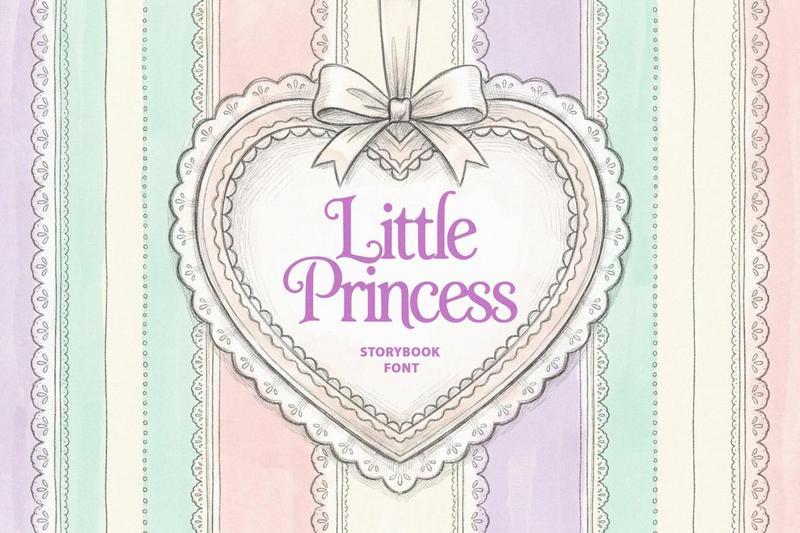
Little Princess Font RWFSTFU
Little Princess is a whimsical fairytale serif font.
Use it for storybook covers, childrens projects, logos, packaging, invitations, posters, nursery decor, and woodland/cottagecore designs.